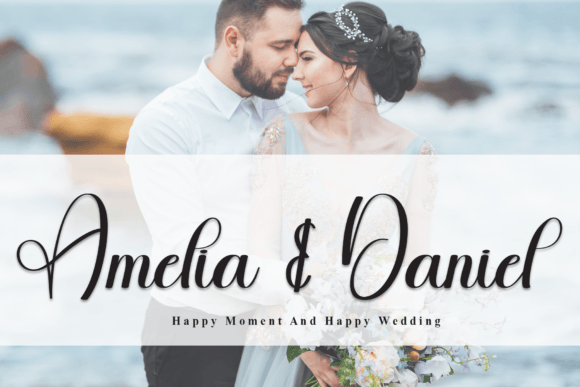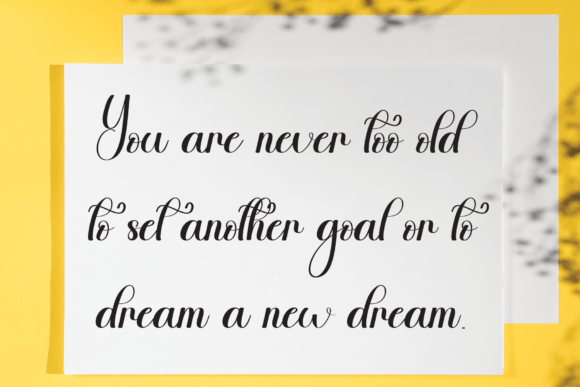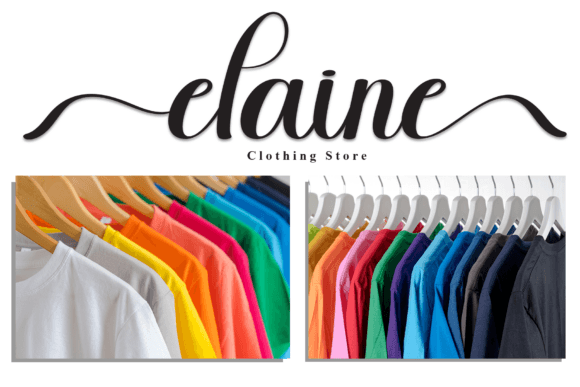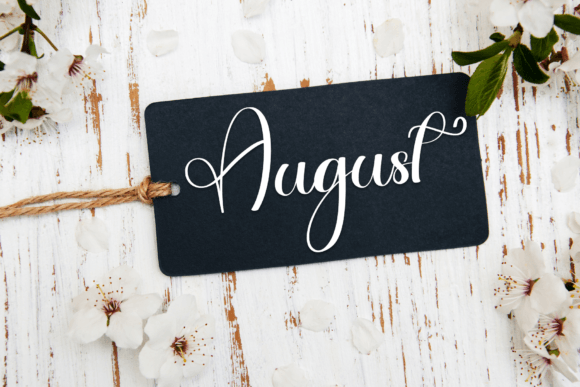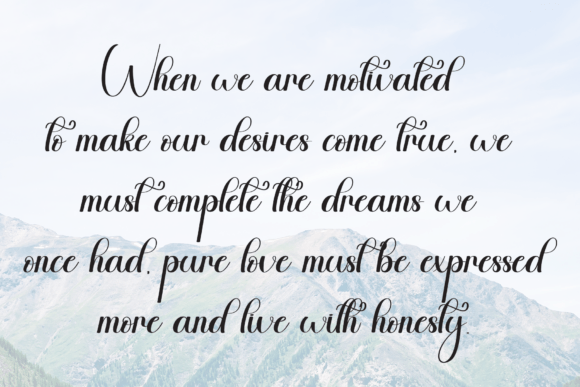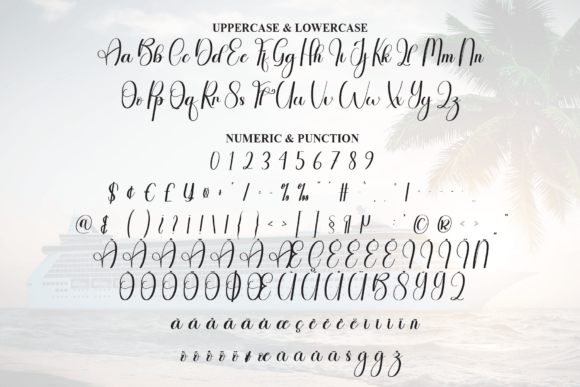
Steering Your Design Towards Whimsy
Have you ever sat down with a blank sheet of paper, a cup of steaming coffee, and the urge to create something truly special? For many designers, this moment is the spark that sets their imagination ablaze. It’s a time to let creativity flow freely, to experiment with new ideas, and to push the boundaries of what’s possible. And for those who crave a touch of whimsy in their designs, there’s a new font that’s sure to set sail for success: Cruise Font.
Cruise Font is a delightful, nostalgically handwritten font that brings a radiant touch of whimsy to any design. Its refined elegance and jovial energy make it perfect for crafting heartfelt wedding invitations, captivating cards, or any project that yearns for a sprightly hint of fun. Whether you’re a seasoned designer or just starting out, Cruise Font is an invaluable addition to your creative toolkit.
Cruise Font Key Features
- Unique Characteristics: Cruise Font features a unique blend of modern and classic elements, with a distinctive curve and a sense of movement, evoking the feeling of cruising on the water.
Cruise Font Review
I recently had the chance to work with the Cruise Font, and I must say it’s a mixed bag. On the one hand, I appreciate the unique blend of elegance and playfulness it brings to a design.
✨ One thing that works well is the font’s versatility. It’s suitable for a wide range of applications, from headlines to body text, and even works well in digital and print formats.
✨ The font’s curves and lines also make it an excellent choice for creating a sense of movement and flow, which is perfect for designs that require a sense of energy or dynamism.
✨ Additionally, the font comes in a variety of weights and styles, making it easy to customize and match with other design elements.
- ⚠️ The font may not be suitable for designs that require a more formal or professional tone, as it can come across as a bit too playful or whimsical.
- ⚠️ Some users may find the font’s curves and lines to be a bit too busy or overwhelming, which can detract from the overall design.
Overall, I think the Cruise Font is a solid choice for designers who want to add a bit of personality and flair to their designs. While it may not be the best fit for every project, it’s definitely worth considering for those that require a sense of energy and playfulness.
Cruise Font: A Practical Application Guide
Tips for getting the most out of Cruise Font in Canva include using it in bold or italic styles to add emphasis, and combining it with other fonts to create a unique look.
Tips for getting the most out of Cruise Font in Adobe Photoshop or Illustrator include using it in creative compositions, and experimenting with different font sizes and colors to create visual interest.
Tips for getting the most out of Cruise Font in PowerPoint or Word include using it in headings and subheadings to create a clear hierarchy, and combining it with other fonts to create a cohesive look.
Cruise Font is commonly used in:
- Travel and tourism branding
- Food and beverage marketing Alternatives to Cruise Font for Designers
- Choose the font’s bold and regular weights to create contrast and hierarchy.
- Use Cruise Font for headings and subheadings to evoke a sense of luxury and sophistication.
Creative Projects Using Cruise Font
Project 1: Coastal Travel Brochure
A visually appealing travel brochure for a coastal cruise, featuring scenic destinations and luxurious amenities.
To use Cruise Font in this project:
Project 2: Nautical-Themed Wedding Invitations
Unique and elegant wedding invitations featuring a nautical theme, complete with anchors, ropes, and seagulls.
To use Cruise Font in this project: